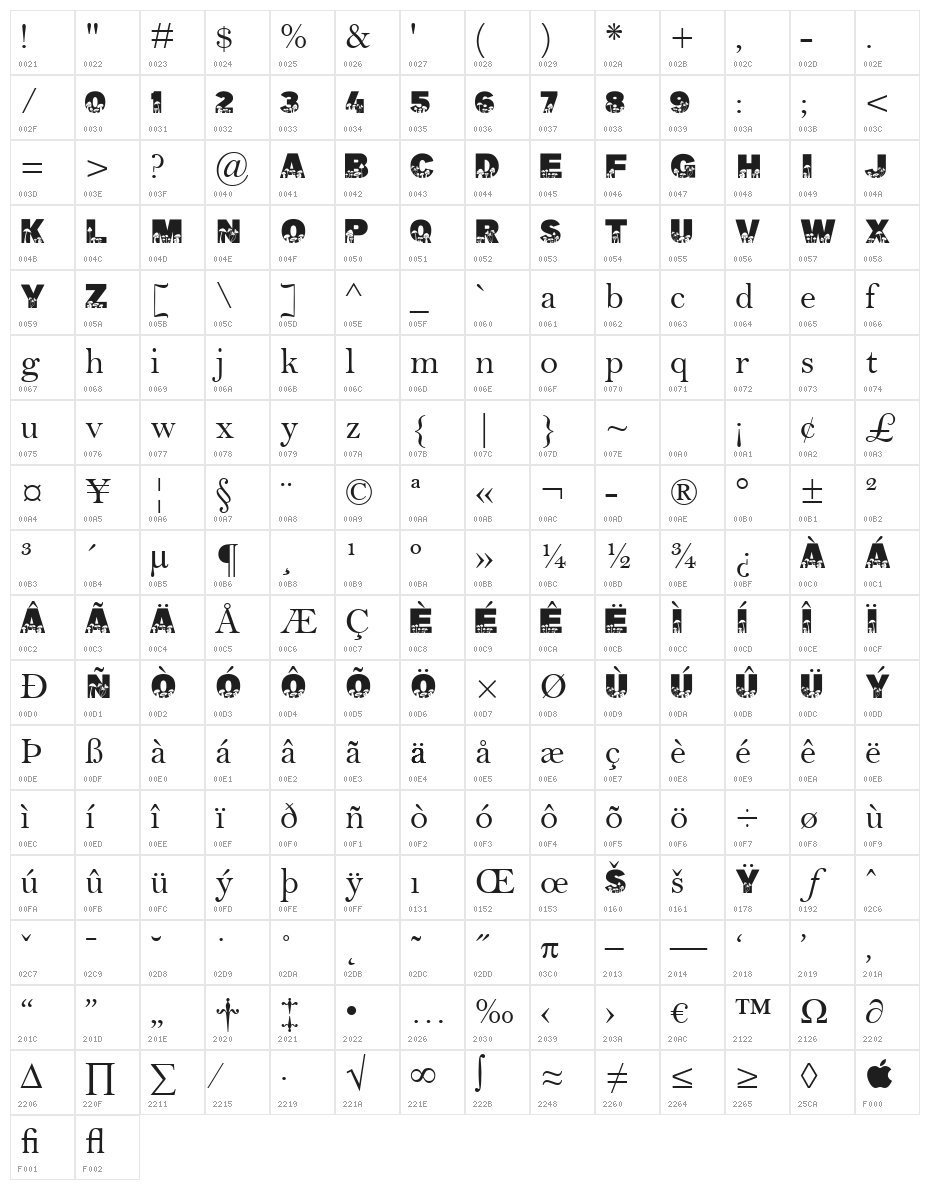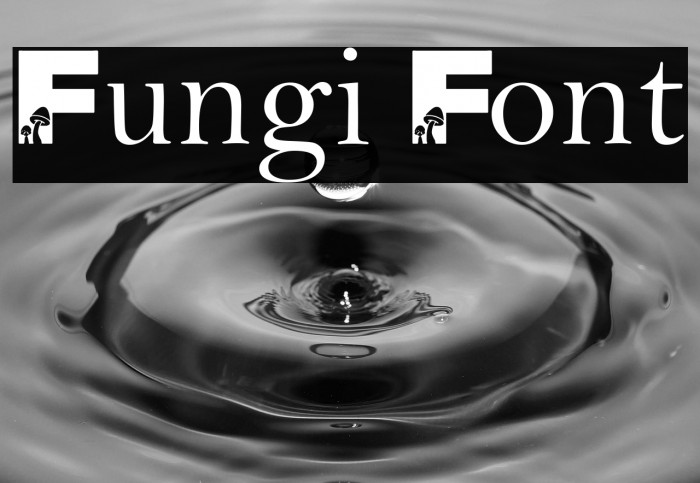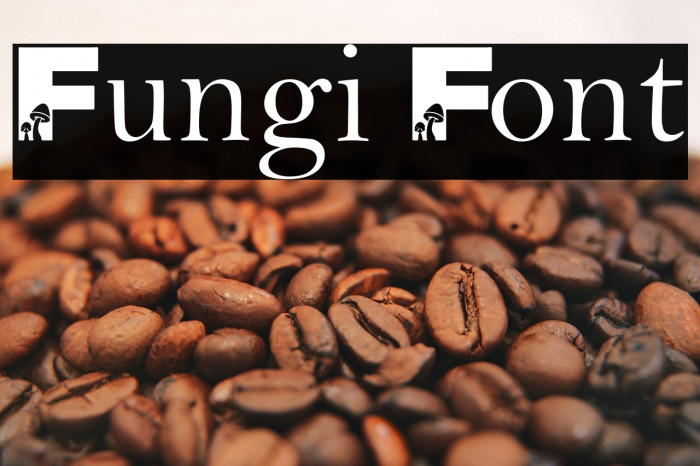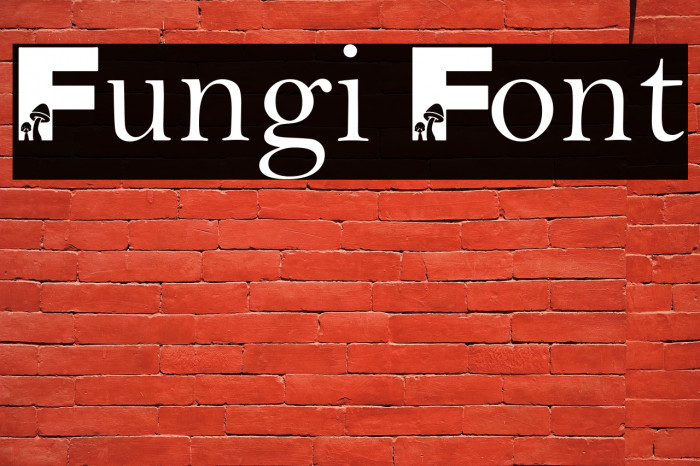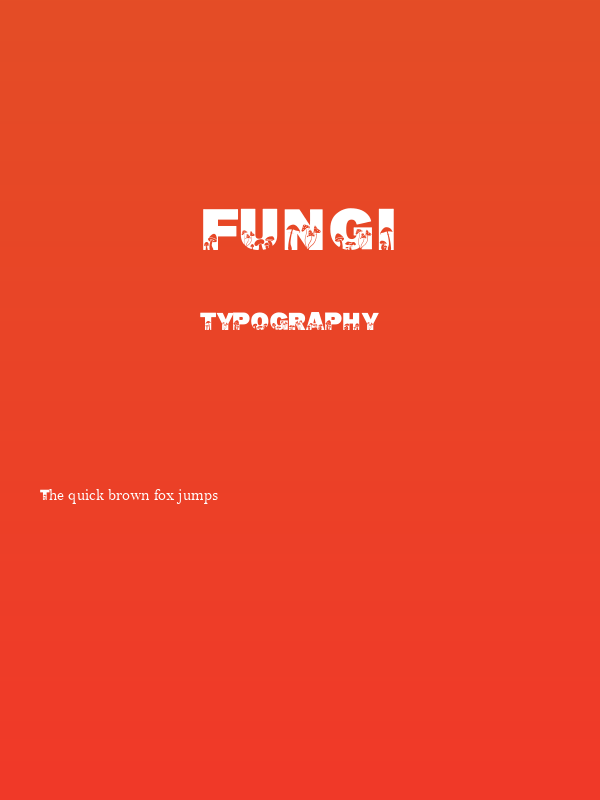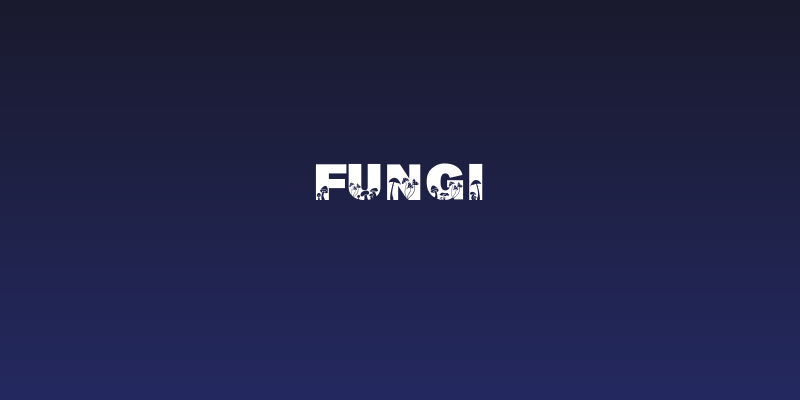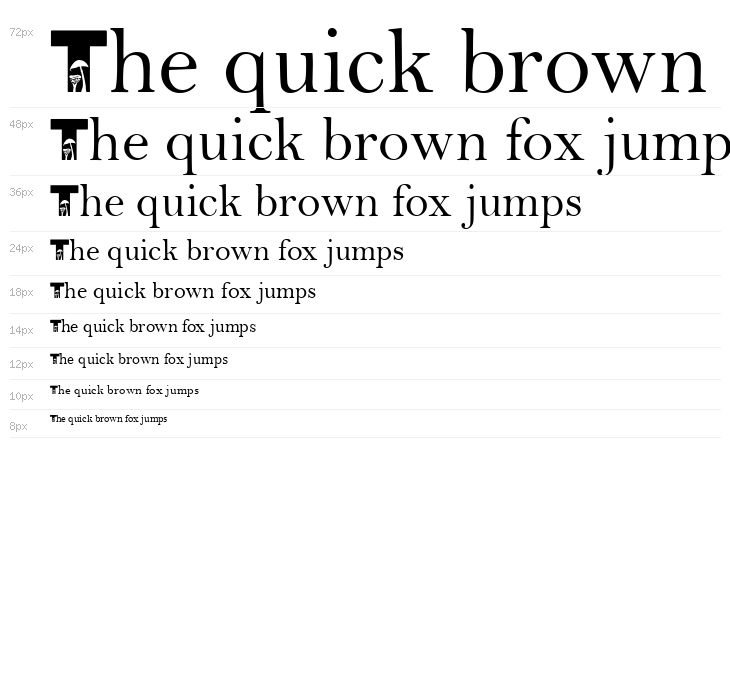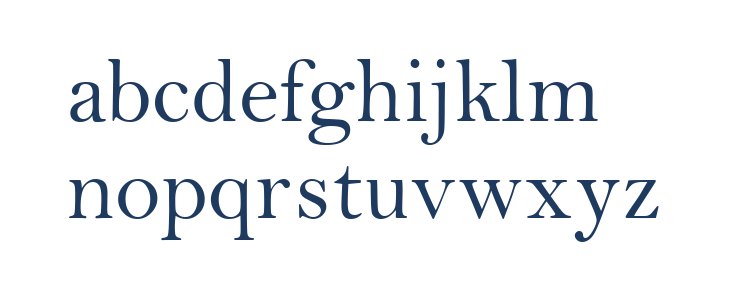
Fungi Font
Fungi Description
This font is a playful and creative typeface that combines bold, decorative elements with a classic serif style. The uppercase letters feature whimsical mushroom illustrations integrated into the solid, bold letterforms, creating a unique and eye-catching design. The lowercase letters maintain a more traditional serif appearance, offering a nice contrast to the decorative uppercase. The numerals also incorporate the mushroom motif, adding consistency and charm throughout the font. Special characters are included, maintaining the playful theme. This font is perfect for projects that require a touch of fun and creativity while still retaining a sense of elegance.
Description: Fungi come in many forms from mycorrhizal fungi, endomycorrhiza, ectomycorrhiza, trichoderma, mycorrhiza to table mushrooms. Show your love of all things fungi by using this free fungi font. License: Free to use anywhere under Creative Commo